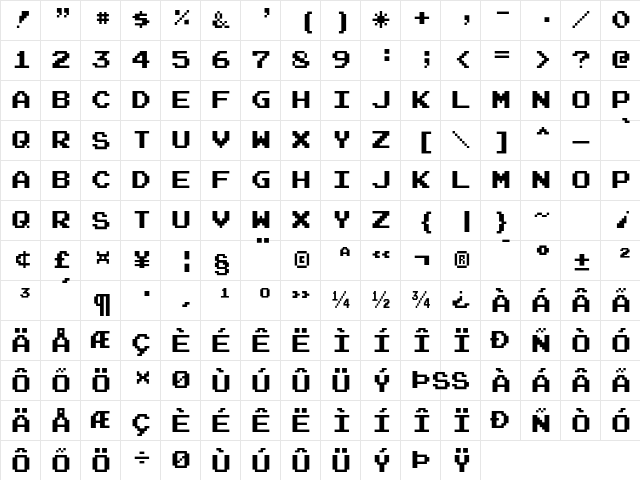
Joystix Monospace
| Style | Monospace |
| Year | 2010 |
Design Context for Joystix Typeface
Joystix brings the precise, column-aligned rhythm of monospaced typography to designs that value technical clarity and systematic order.
Pro Tip: Pair Joystix with a proportional sans for UI contexts where code-style labels and regular body copy need to coexist.